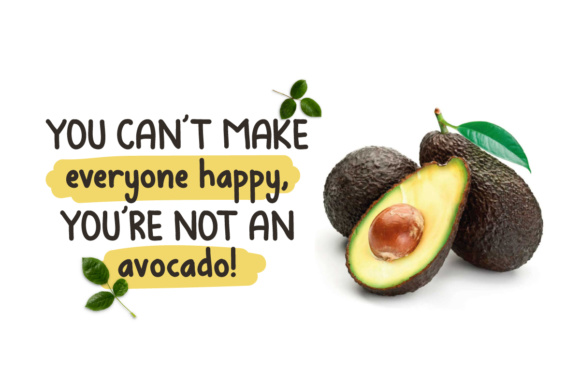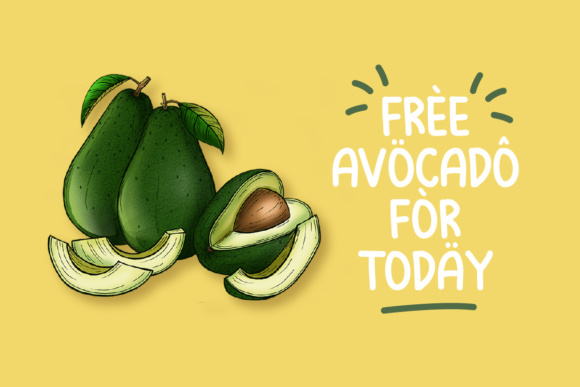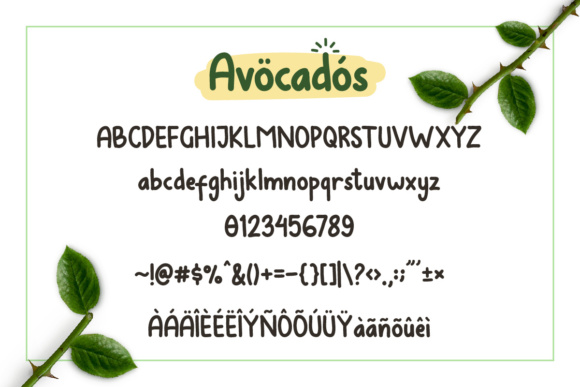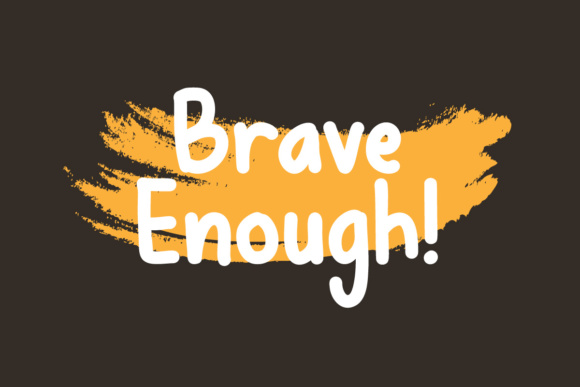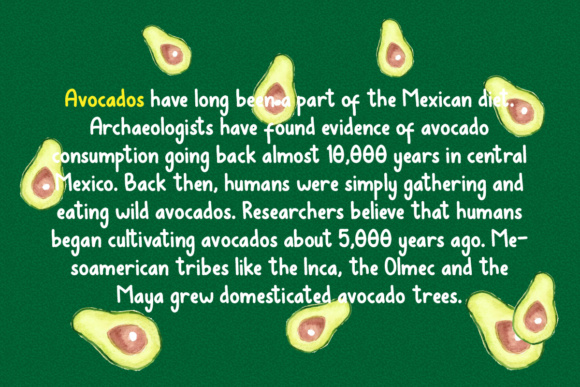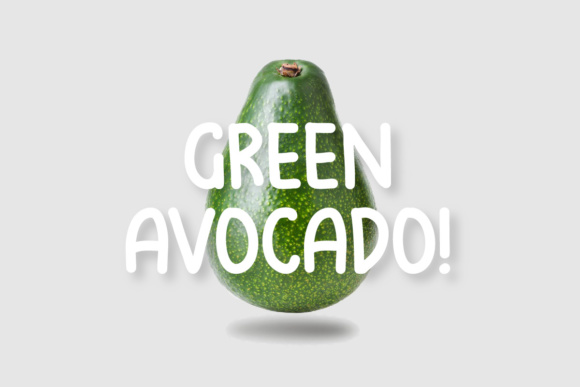
Introducing Avocados Font: The Fresh and Unique Handwritten Style for Your Creative Projects
Are you tired of using the same old fonts for your designs? Look no further! Avocados Font is here to bring a fresh and unique touch to your creative projects. This handwritten font boasts a playful feel that’s perfect for a wide range of applications, from logos and stationery to posters, apparel, and branding.
What Makes Avocados Font Stand Out?
Avocados Font is a one-of-a-kind handwritten font that’s designed to add a personal touch to your designs. Its fresh and unique style is sure to make your projects stand out from the crowd. The font’s playful feel is achieved through its carefully crafted letterforms, which are both elegant and whimsical.
One of the key features that sets Avocados Font apart is its versatility. Whether you’re designing a logo, creating a poster, or developing a brand identity, this font is perfectly suited for a wide range of applications. Its clean and legible design makes it easy to read, while its unique style ensures that your designs will be remembered.
Avocados Font is a dream come true for designers and crafters who are looking for a font that can add a personal touch to their projects. Whether you’re a professional designer or a DIY enthusiast, this font is easy to use and can be incorporated into your designs with ease.
For designers, Avocados Font offers a wide range of possibilities. You can use it to create stunning logos, business cards, and brochures that will make your clients stand out. For crafters, this font is perfect for creating handmade cards, gift tags, and other paper crafts that require a personal touch.
Use Avocados Font for a Variety of Projects
Avocados Font is a versatile font that can be used for a wide range of projects, including:
- Logos: Create a unique and memorable logo for your business or brand with Avocados Font.
- Stationery: Add a personal touch to your stationery with this beautiful handwritten font.
- Posters: Create eye-catching posters that will grab the attention of your audience.
- Apparel: Design stunning t-shirts, hoodies, and other apparel with Avocados Font.
- Branding: Develop a strong brand identity with this unique and memorable font.
Why Choose Avocados Font?
So why choose Avocados Font for your next project? Here are just a few reasons:
- Unique style: Avocados Font offers a fresh and unique style that’s sure to make your designs stand out.
- Playful feel: This font has a playful feel that’s perfect for a wide range of applications.
- Versatility: Avocados Font can be used for a variety of projects, from logos and stationery to posters and apparel.
- Easy to use: This font is easy to use and can be incorporated into your designs with ease.
In conclusion, Avocados Font is a fresh and unique handwritten font that’s perfect for designers and crafters who are looking for a font that can add a personal touch to their projects. Its playful feel and versatility make it a great choice for a wide range of applications, from logos and stationery to posters, apparel, and branding. So why wait? Download Avocados Font today and take your designs to the next level!